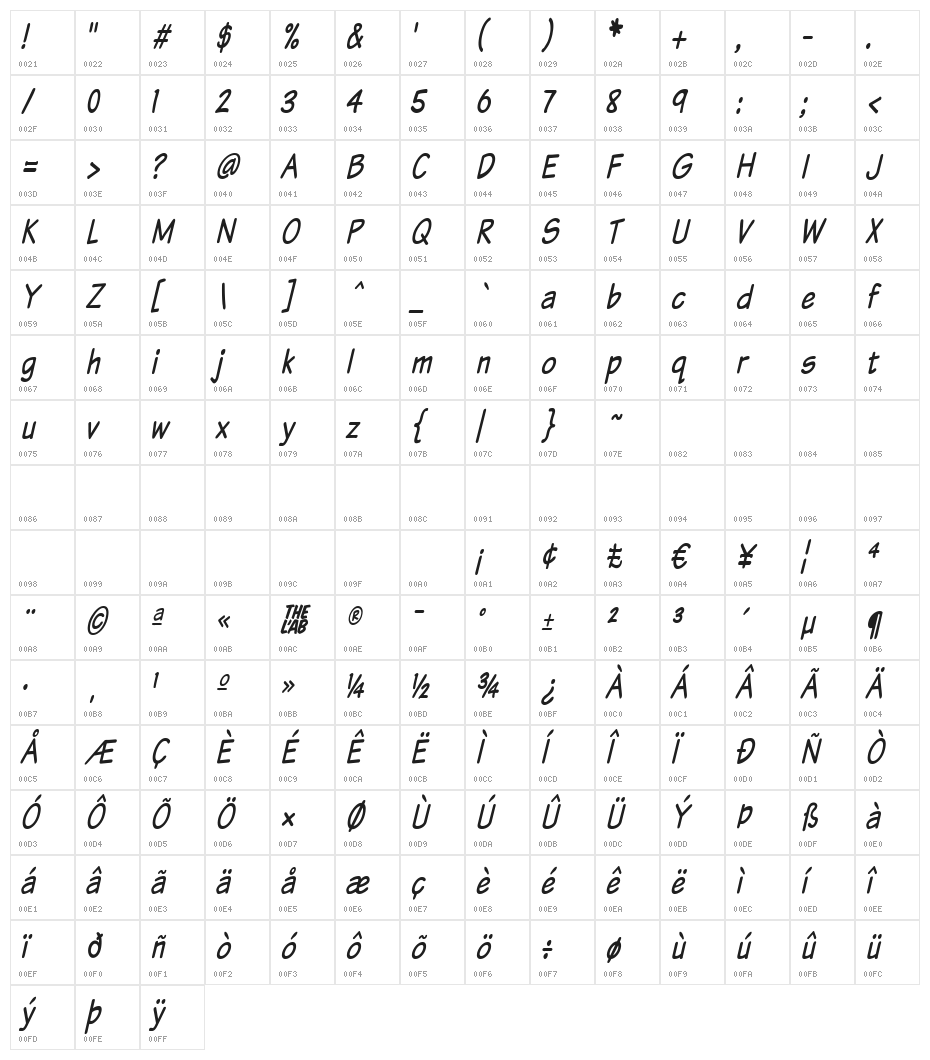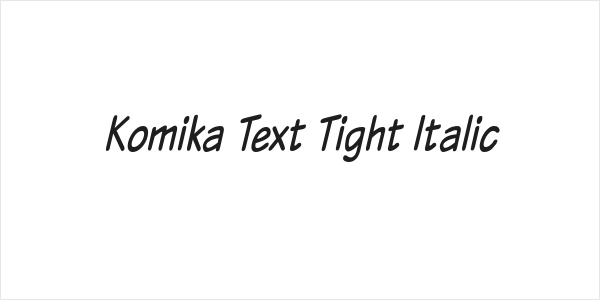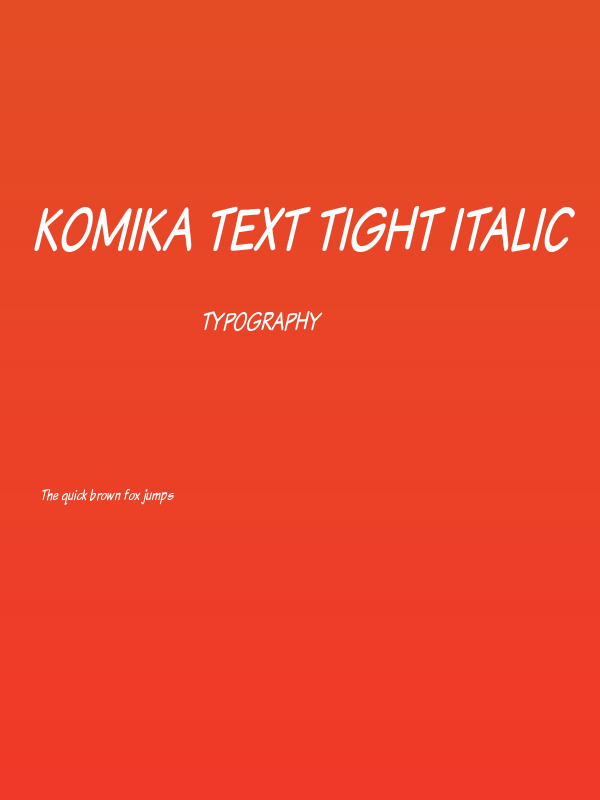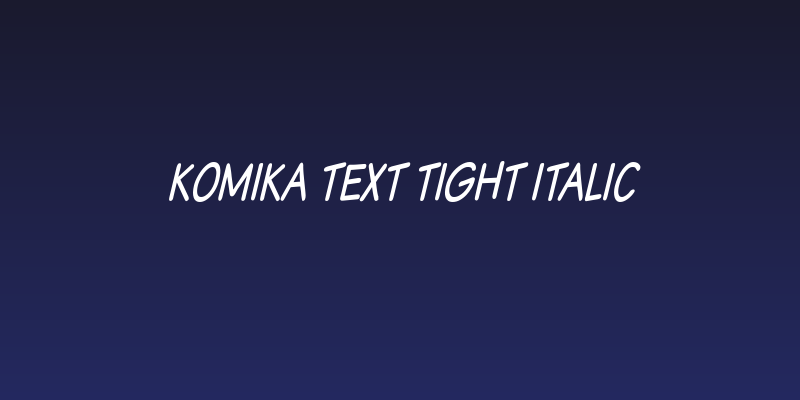
Komika Text Tight Italic Font
Komika Text Tight Italic Description
This font features a playful and dynamic style with a handwritten appearance. The letters are slightly slanted, giving it an italicized look, and the strokes are bold and consistent, providing a sense of energy and movement. The characters are tightly spaced, enhancing its compact and lively feel. The font includes a full set of uppercase and lowercase letters, numbers, and a variety of special characters, making it versatile for different uses. Its informal and friendly design makes it suitable for projects that require a personal touch or a fun, casual vibe.
| Overall Style | Playful, Informal |
| Proposed Projects | Ideal for comic books, children's books, playful branding, greeting cards, and informal invitations. |